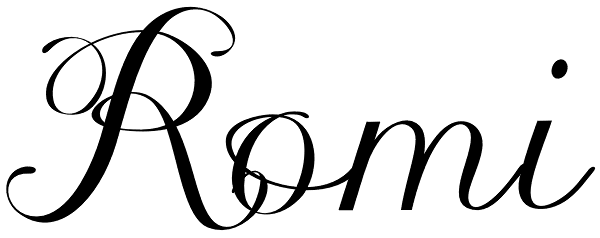
Romi
Romi is a legible, feminine, script font, suitable for wedding invitations, valentine cards, beauty products, or wherever a soft, romantic image is sought. Suggestions for use: - wedding stationery - greeting cards - valentines day media - beauty...